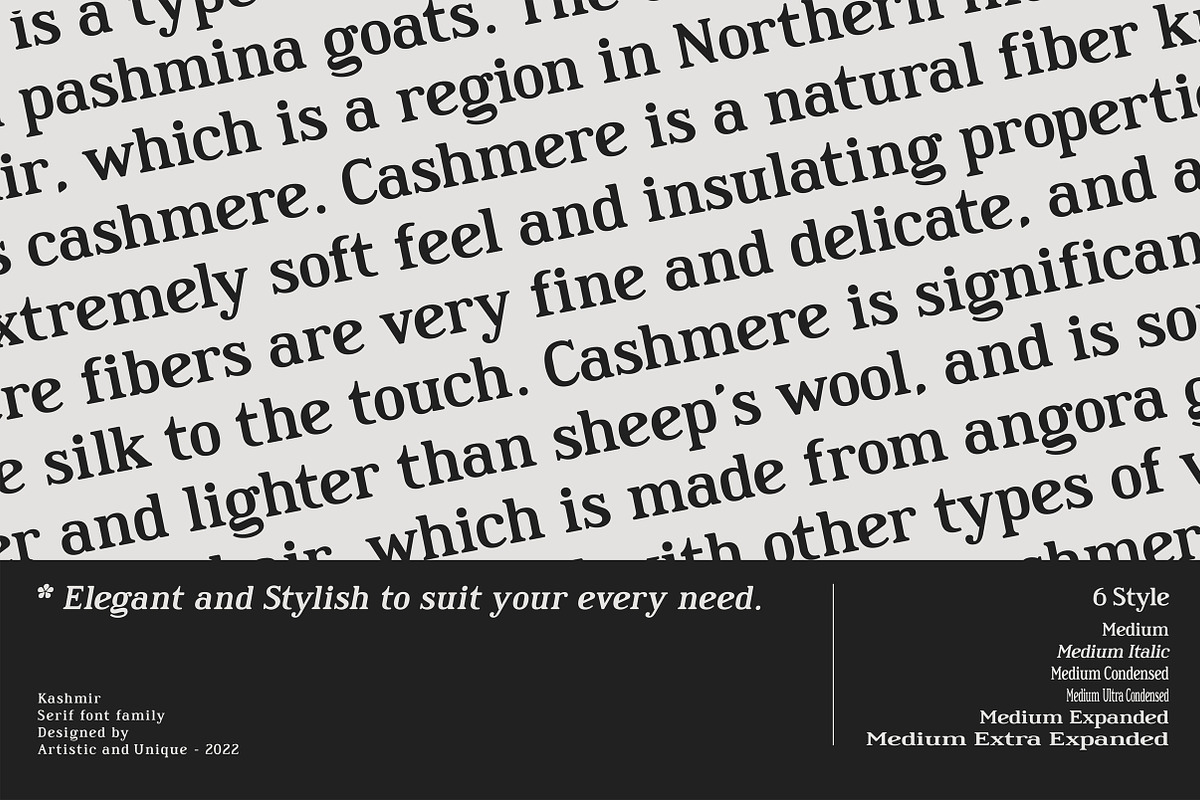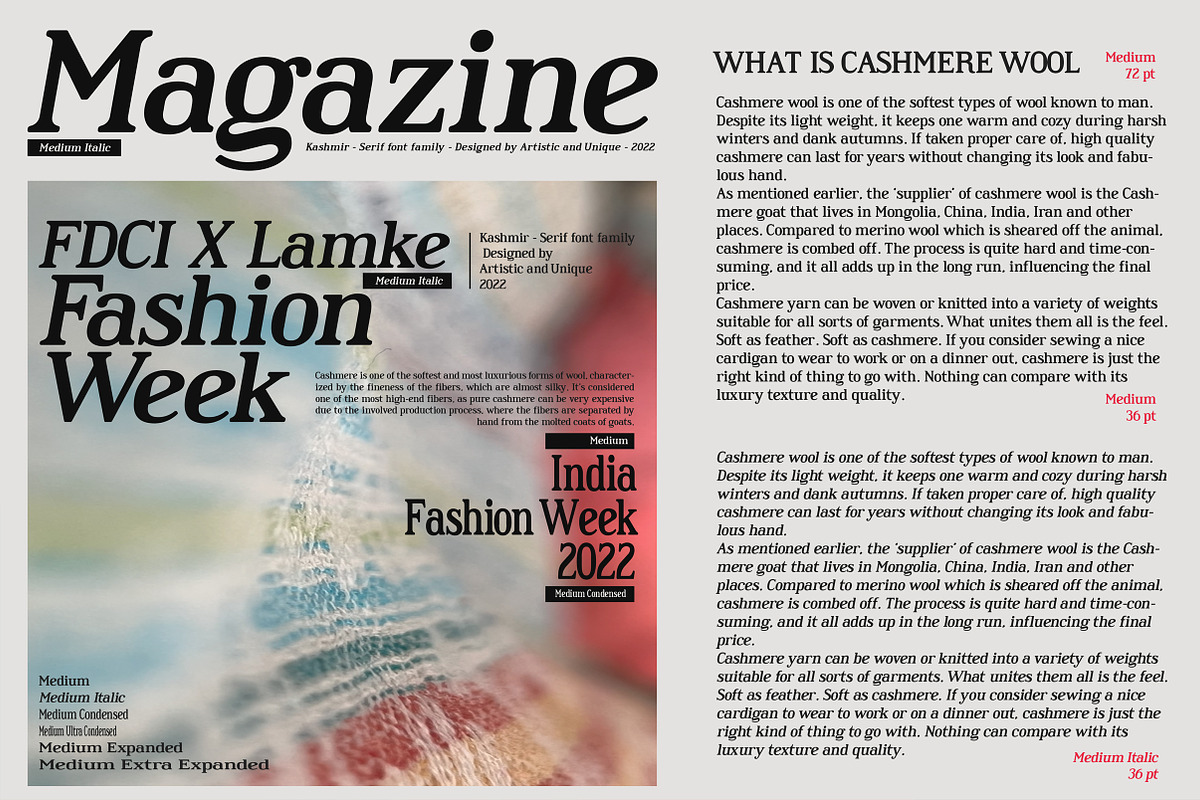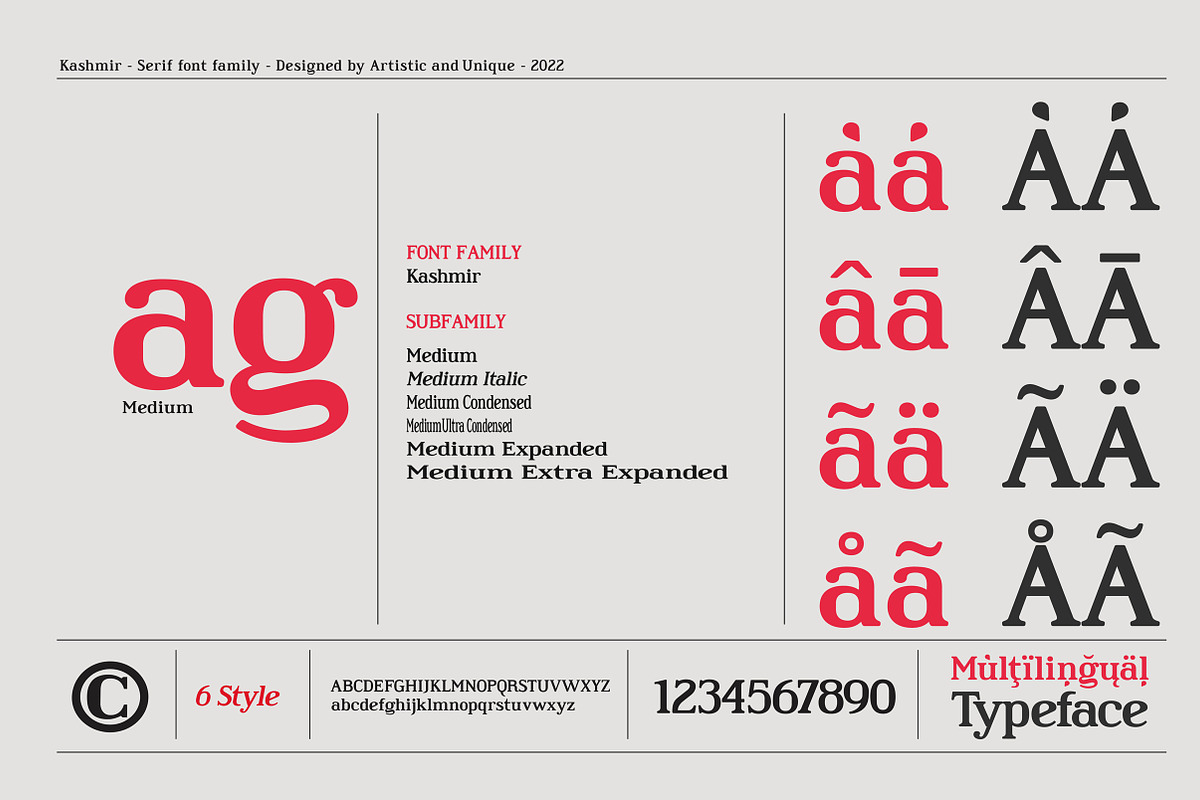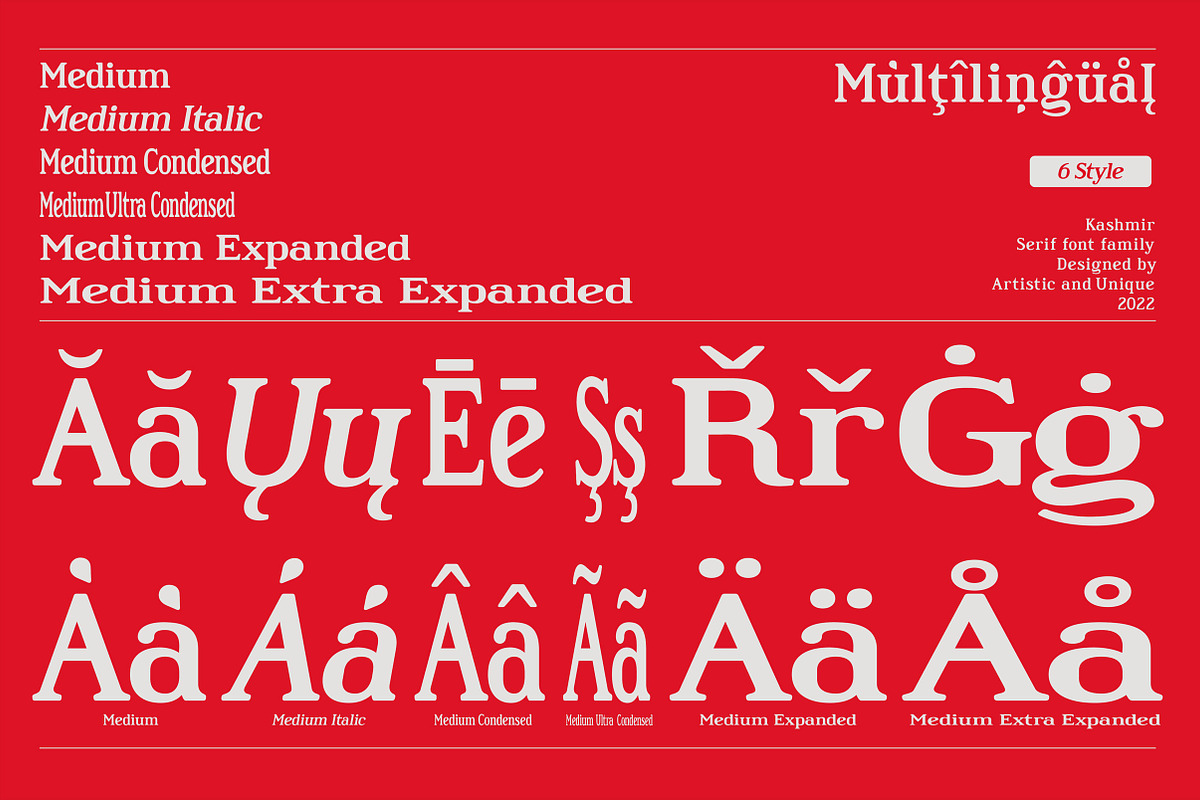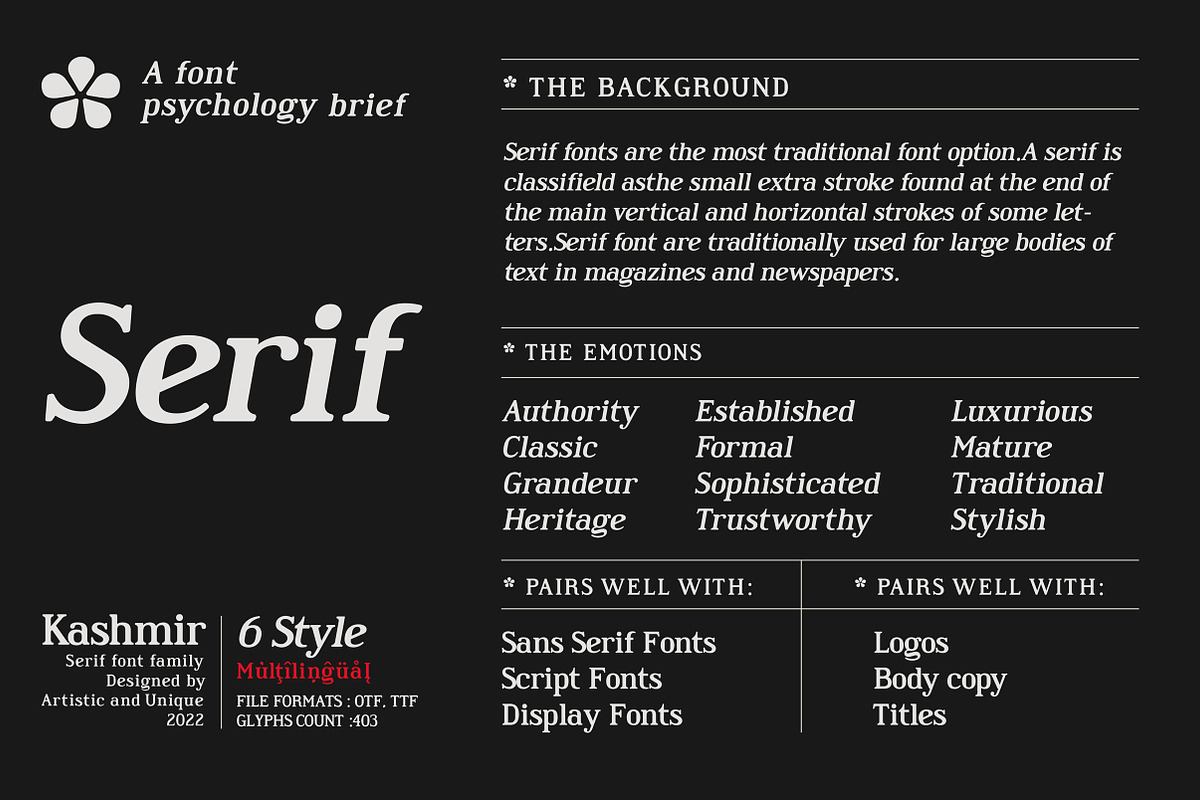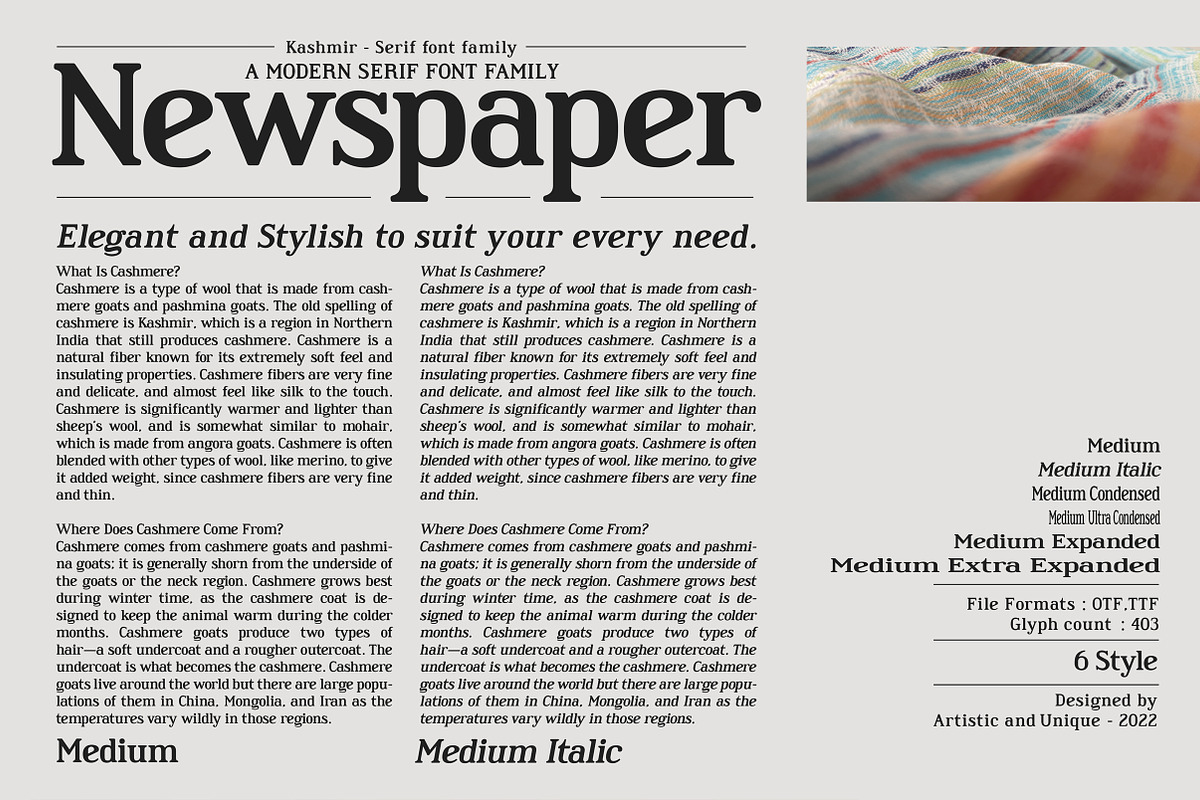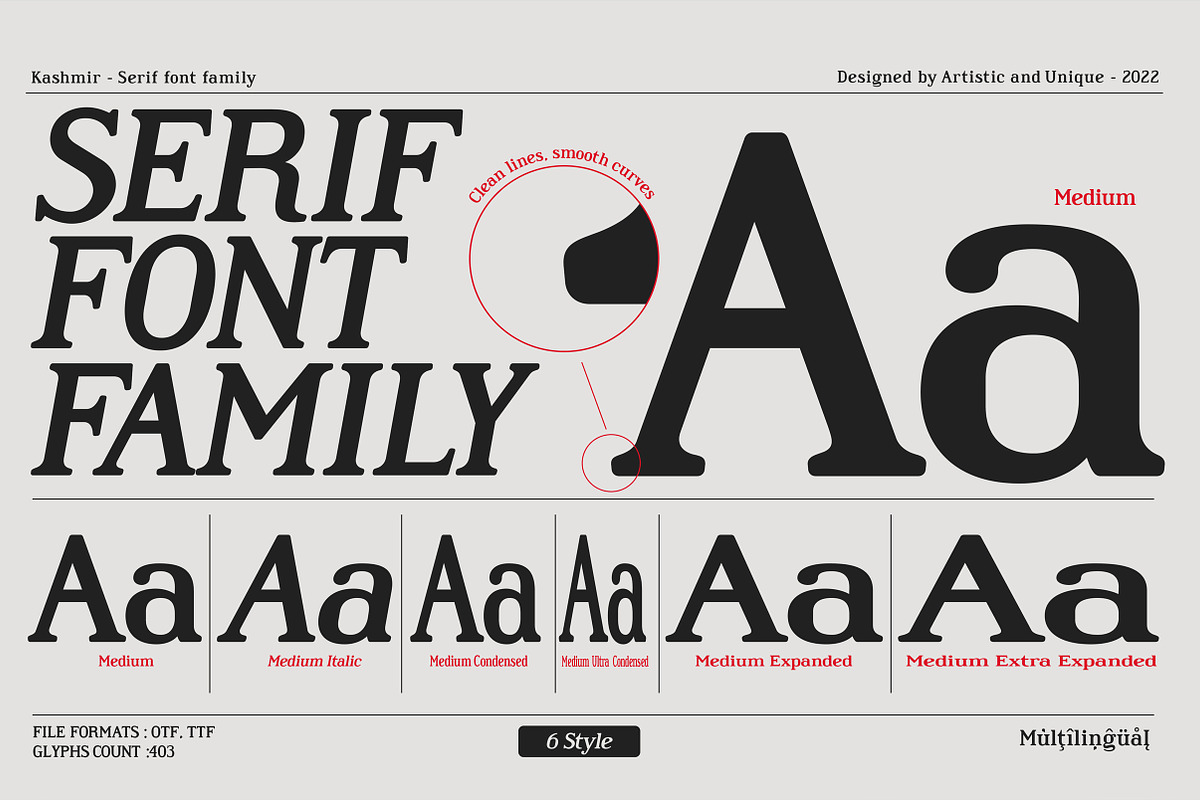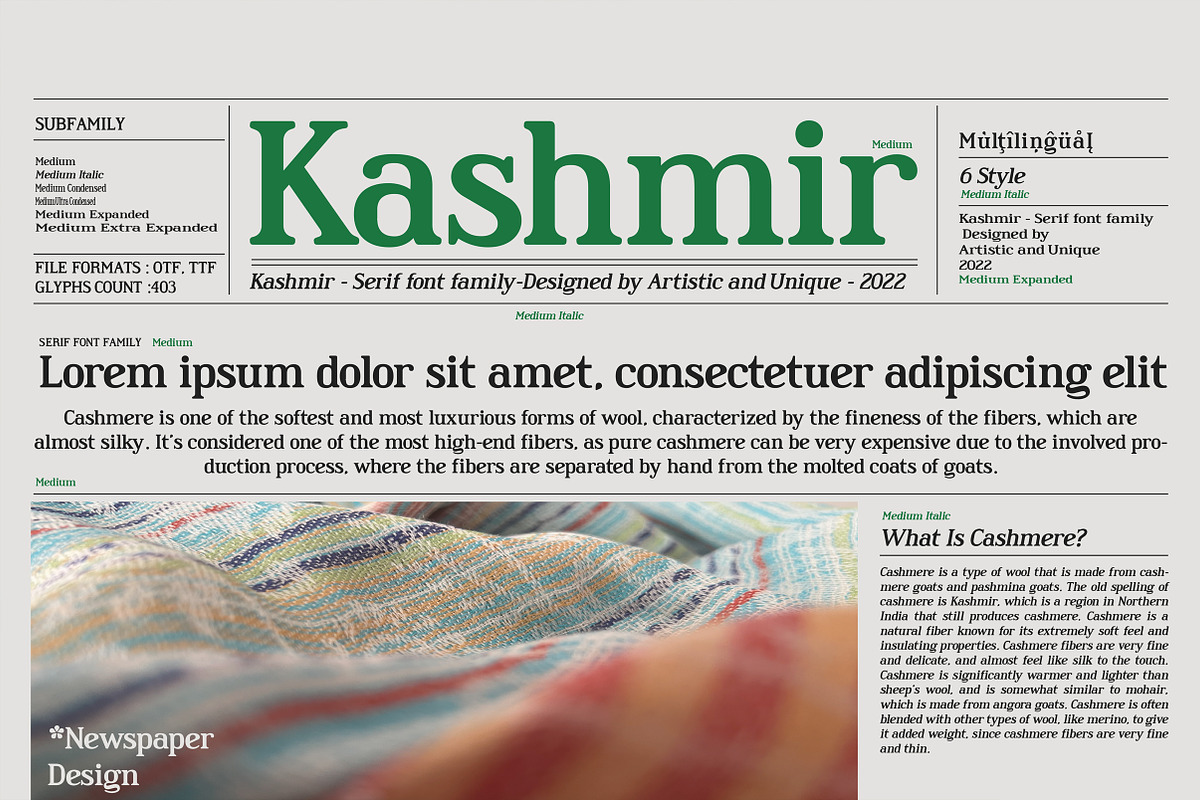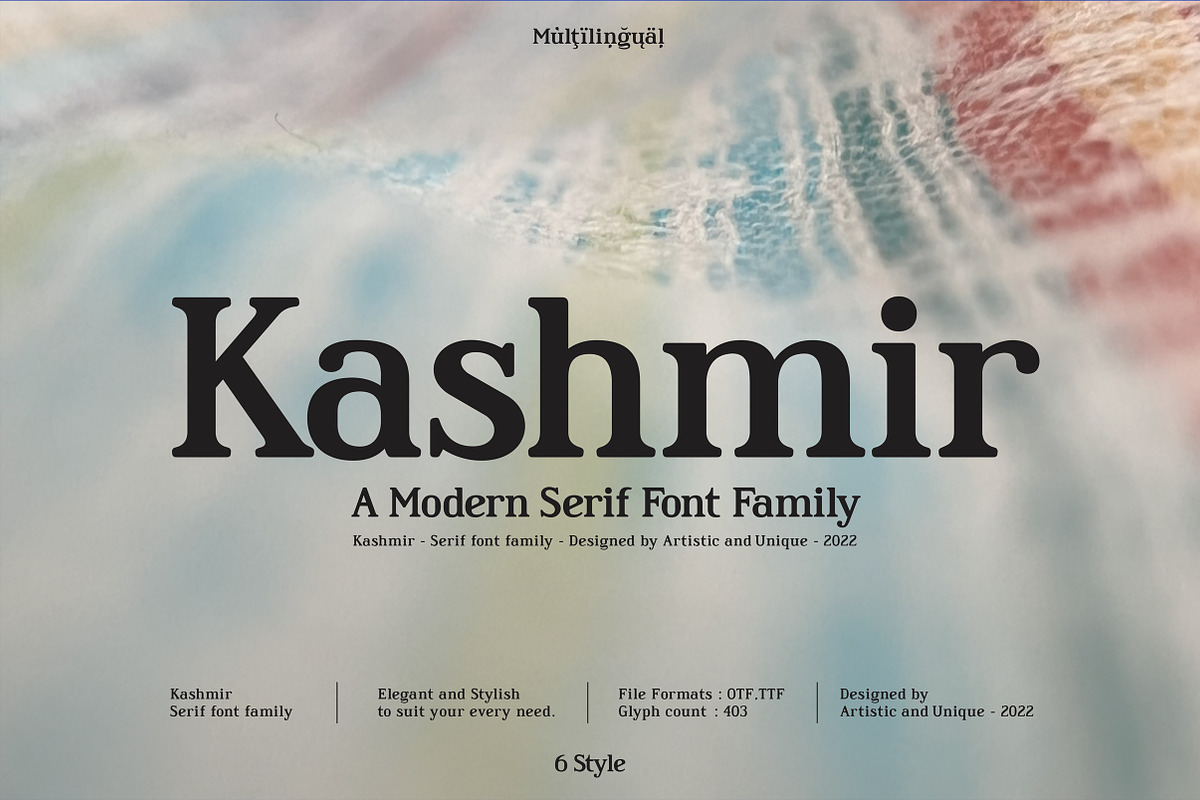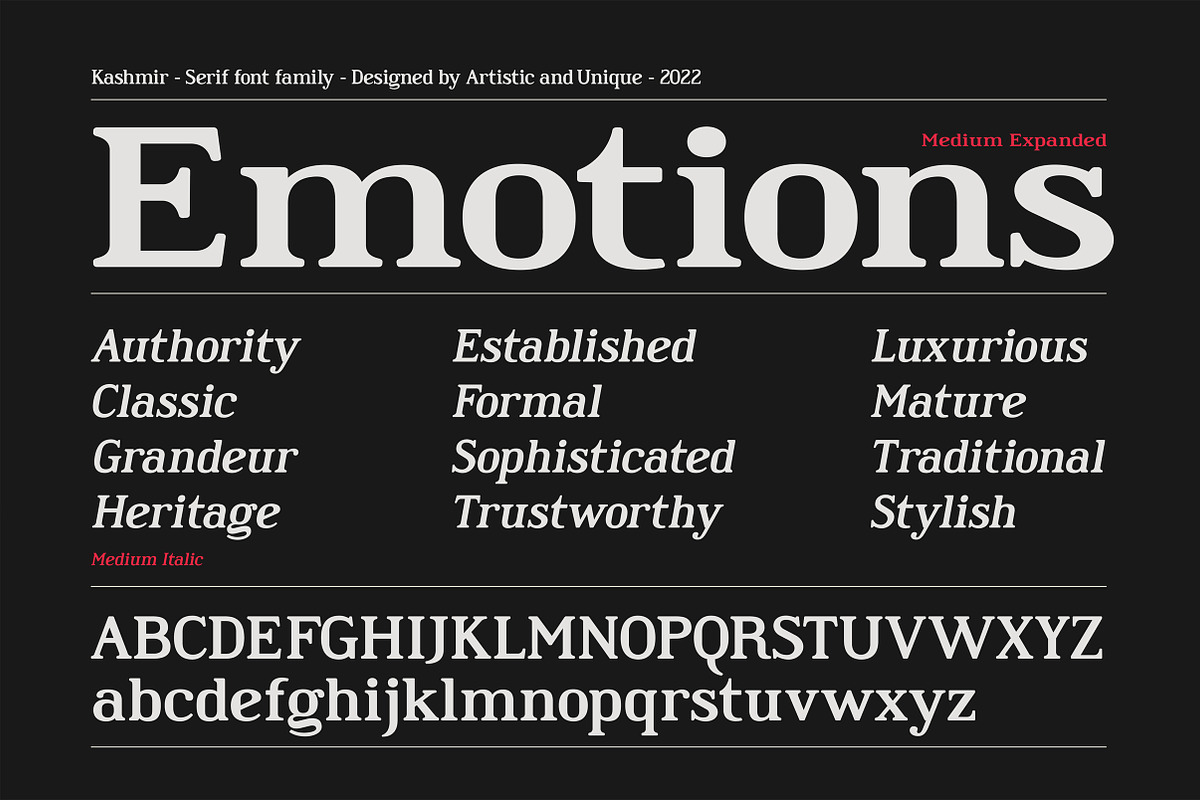
Kashmir - Serif font family
Kashmir is a modern serif font family. If you are looking for a font with clean lines and smooth curves, Kashmir can meet your needs.
You ca easily use the serif font feature in many areas with its elegant- clean structure, which has 6 styles and multilingual supports.From body text to big headlines, classic to modern and bold, this font offers a wide variety of styles to help you discover the best mood for your projects. It has a timeless structure where you can create your modern-elegant or classic design alternatives.
Great for books and magazines, editorials, headlines, websites, logos, branding, advertising and more. Kashmir serif font family can meet your needs in all modern and classic creative projects.
With this font you can create your unique designs.